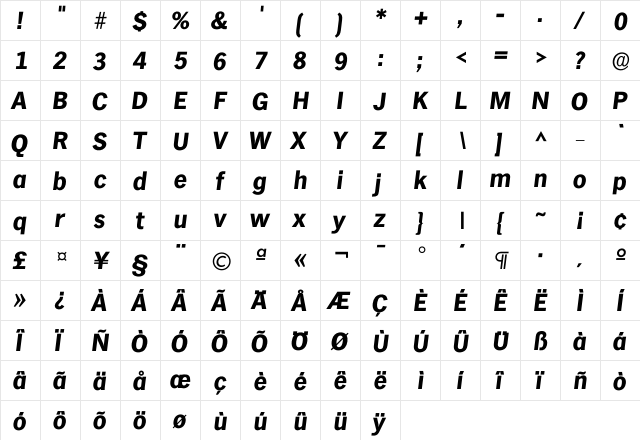
Ihamburg Bold
Design Context for Ihamburg Typeface
Ihamburg takes a measured approach to typography — its balanced proportions and neutral character make it a reliable workhorse for both digital and print work. Its bold stroke weight gives it real presence on the page.
Pro Tip: Pair Ihamburg with a font of contrasting weight or personality to build a more expressive typographic hierarchy.